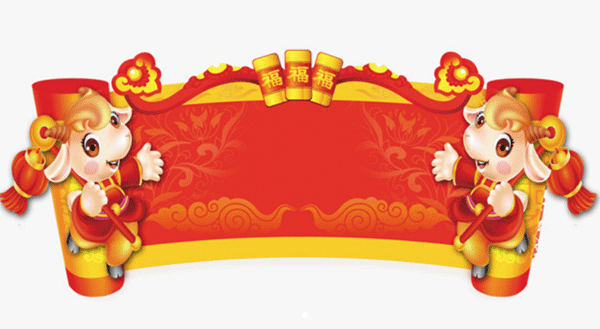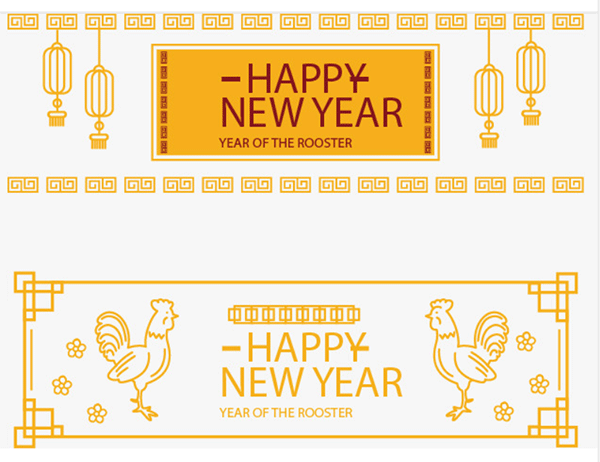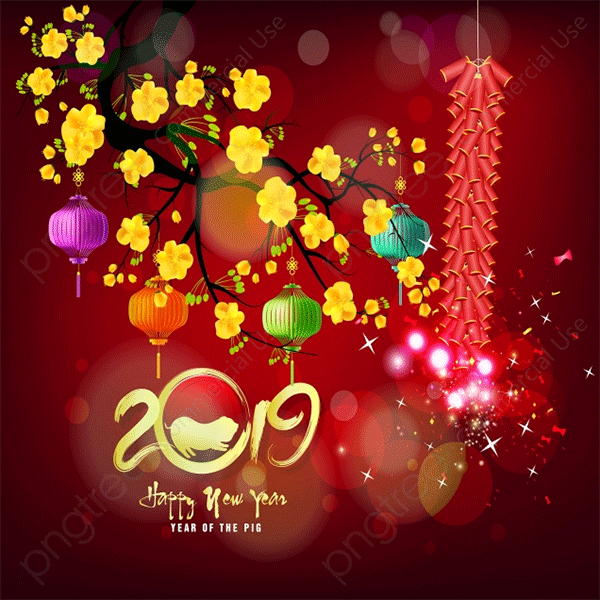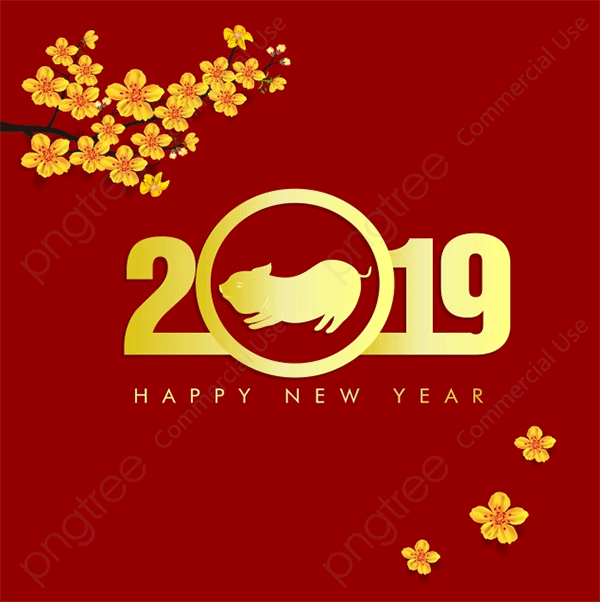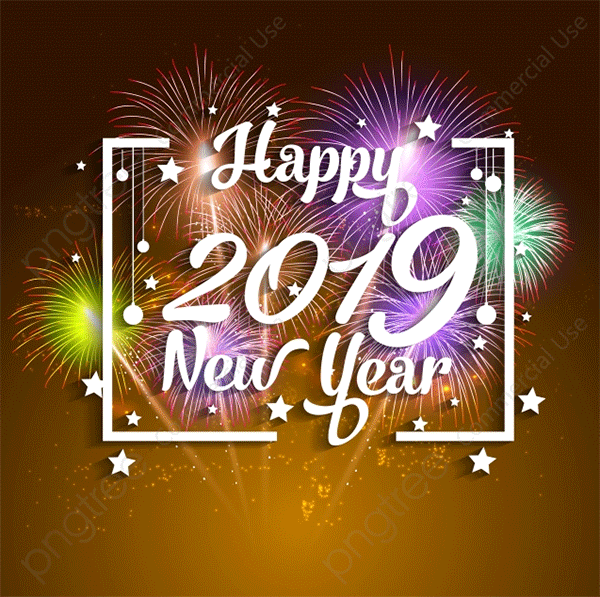
Lunar New Year is all around here. In this post, we would like to give you best favorite Freebies including Beautiful Fonts, Icon Sets, BackGround, Banners, and Vectors which are specially designed for Lunar New Year. You can use them to make your site more engaging or get a successful promotional event on this big holiday
[FREEBIES] Best Lunar New Year Fonts, Images, Background and Banners
Most Beautiful New Year Fonts
1. Welcome 2019 font
This is a beautiful font to welcome 2019. This font is for personal use only!
Welcome 2019 font
2. I Love Christmas Font
How to use this font: Type * (asterisk) for the star. Type | (vertical bar) for the solid star doodle. Type _ (underscore) for the open star doodle. Type [ ] (brackets) for the string of lights. Type { } (curly braces) for the loopy string of lights. Type ~ (tilde) for the Christmas tree. Type ^ (caret) for the ribbon.
i love christmas
3. Brannboll Font
It's nice font for this Christmas and it's free for personal use only. Use 0-9 for swashes. Example: Brannboll2
brannboll font
4. One Starry Night Font
This font is very fun, and has strong roots in hand­lettering. The swirls and swoops found in the letters gives off a lot of energy, and the thinness of the letters ensures the typeface isn't too overwhelming.
one starry night font
5. Chopin Script Font
Script fonts are always a great choice for holiday designs, and Chopin Script is no exception. The thin letters paired with the subtle accent lines makes for a truly elegant typeface, which would work with a number of holiday designs.
chopin script font
6. Christmas Sparkle PERSONAL USE font
merry xmas st font
Free New Year Background, Icon Set and Banners
1. Happy New Year 2019 Backgrounds
2. Free New Year Icon Sets
3. Free Banners & Graphics with PSD